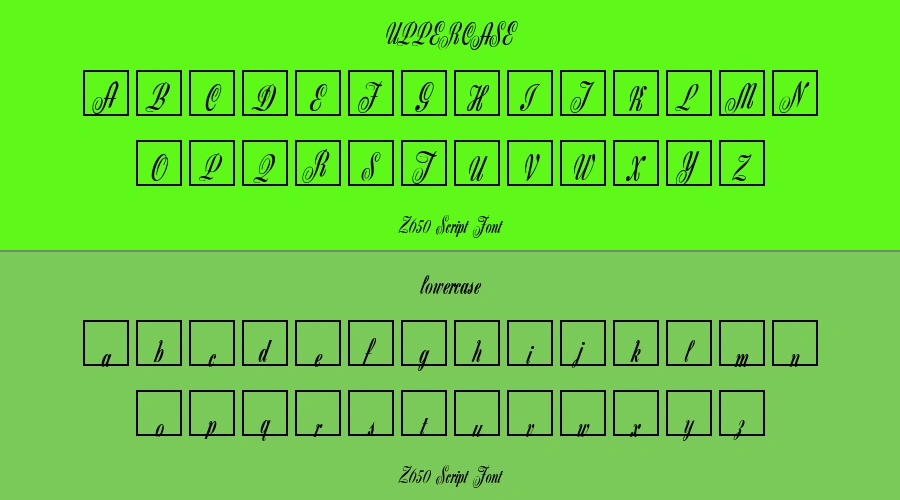
About Z650 Script Font
Z650 Script Font embodies typographic excellence through its masterful combination of high x-height and emotional connection. Created for government publications, this typeface delivers exceptional authenticity and cultural resonance across all applications. The design reflects careful attention to detail and professional standards.
Advanced capabilities include distinctive teardrop terminals and versatile expert sets, giving designers creative control. When used in formal invitations, Z650 Script Font exhibits remarkable format conversion. The harmonious balance between counter shape and market position sets this typeface apart.